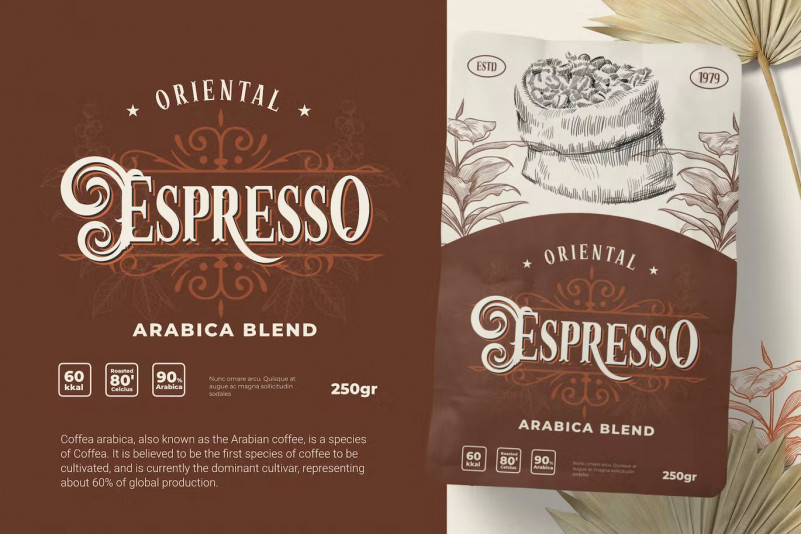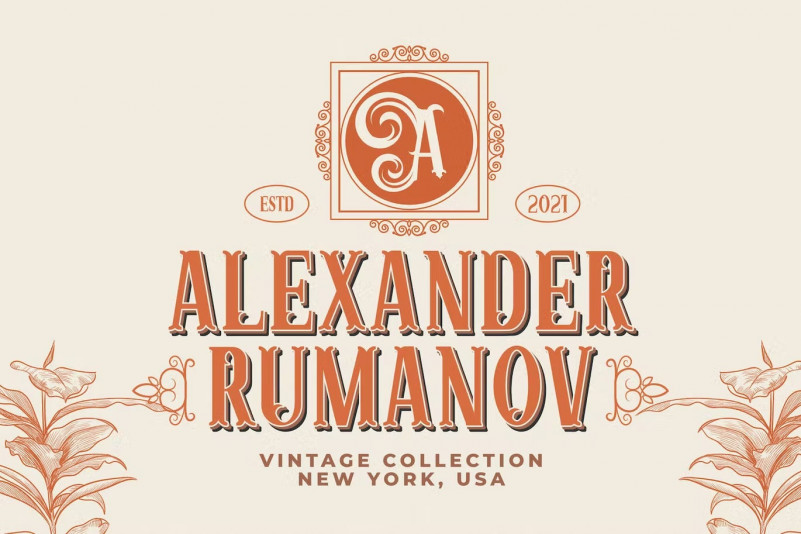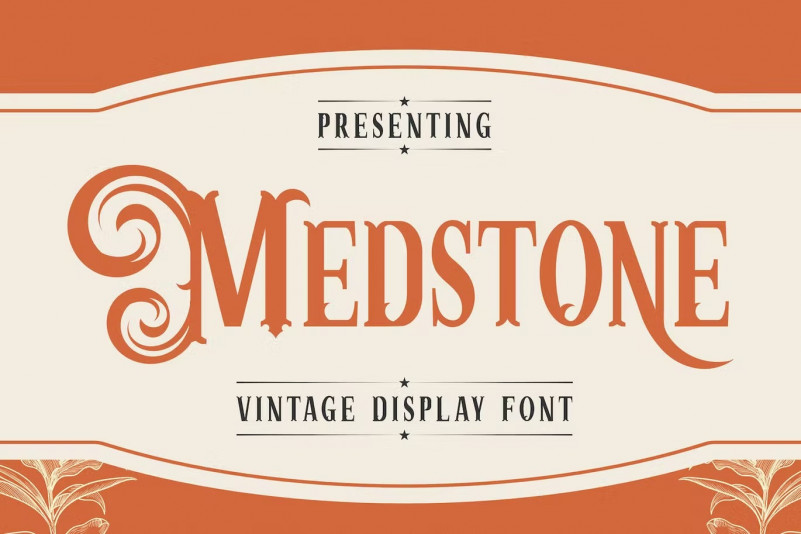
Medstone Font
Runsell’s Font Product is perfect for many of your projects like logos & branding, photography, invitations, watermarks, advertisements, product designs, stationery, wedding designs, labels, product packaging, special events and much more.